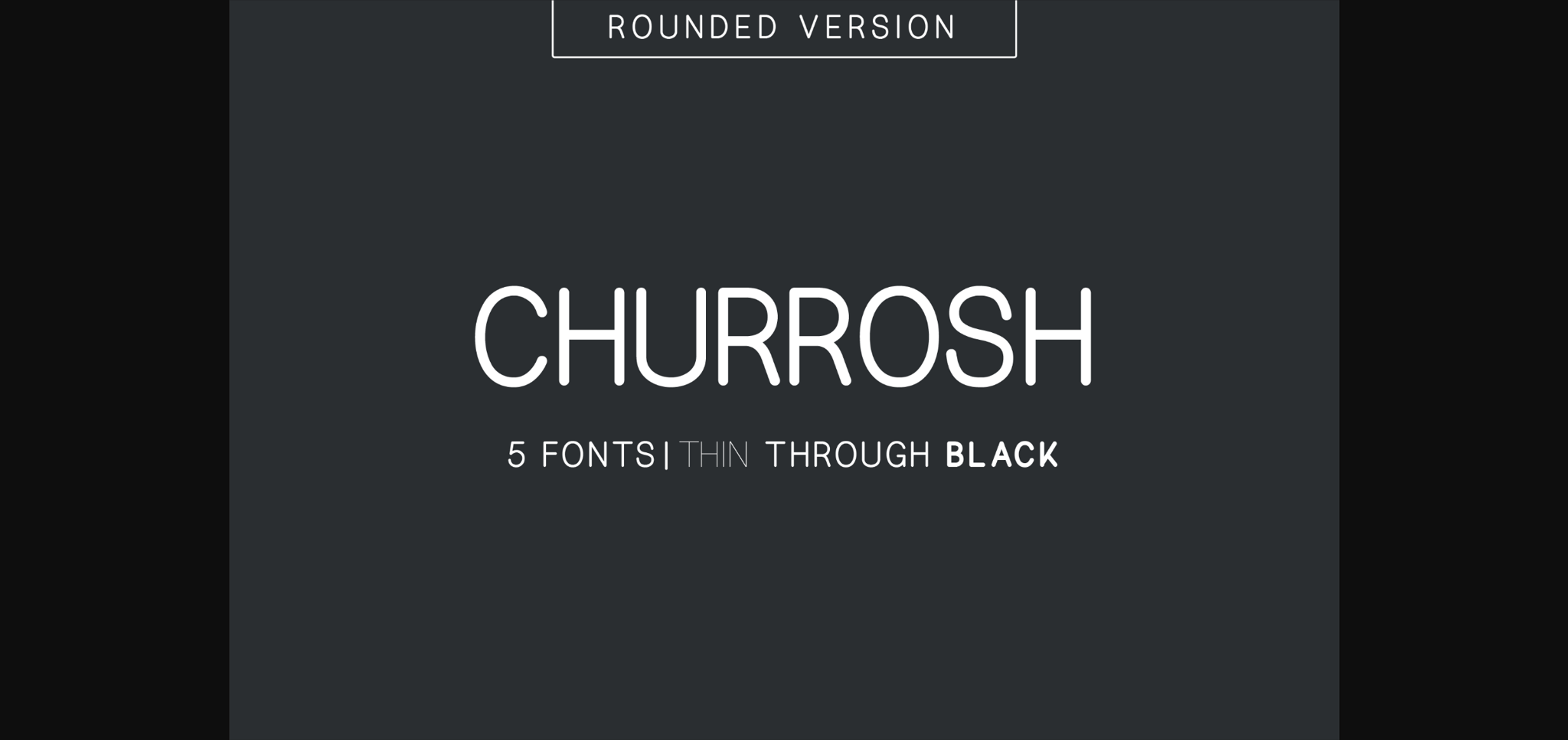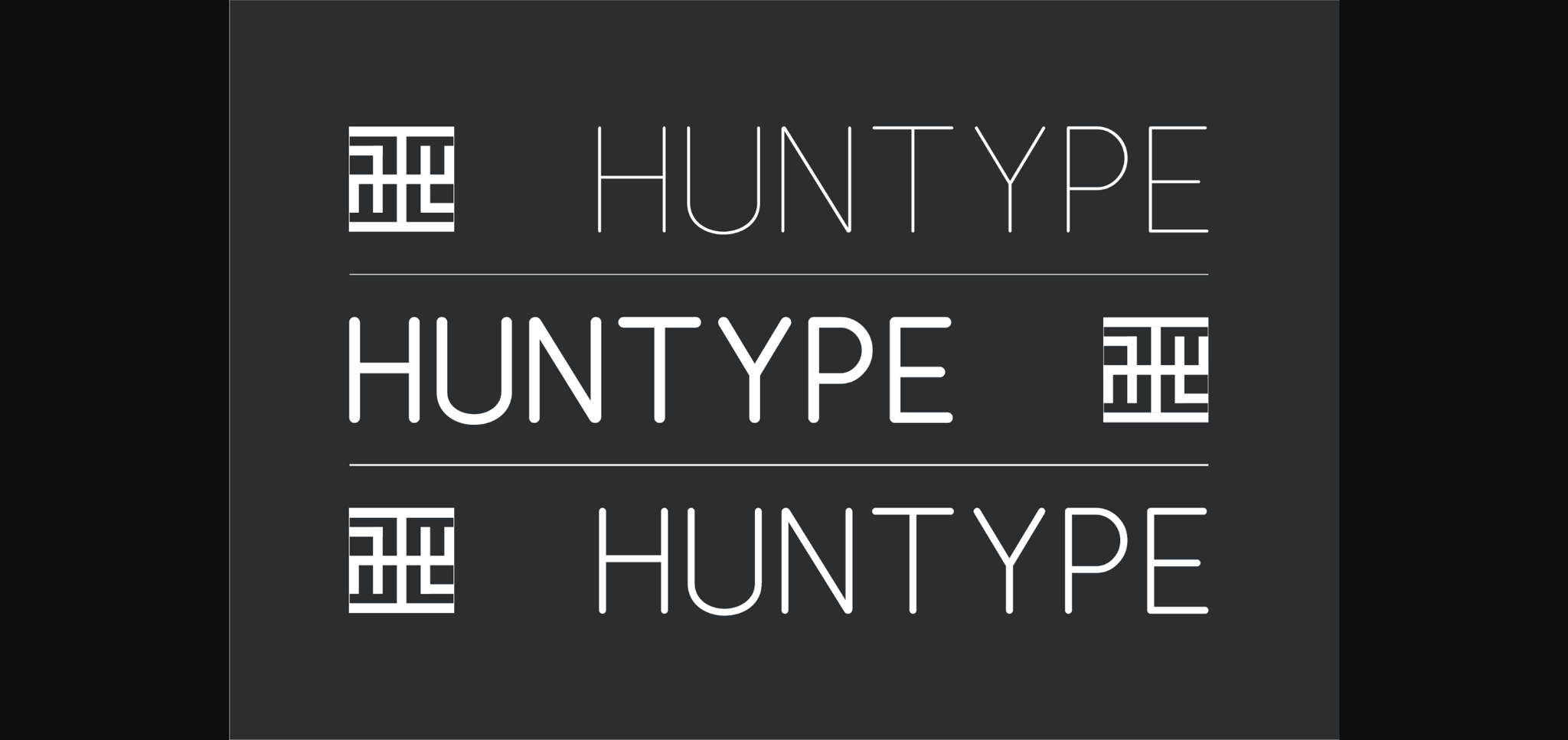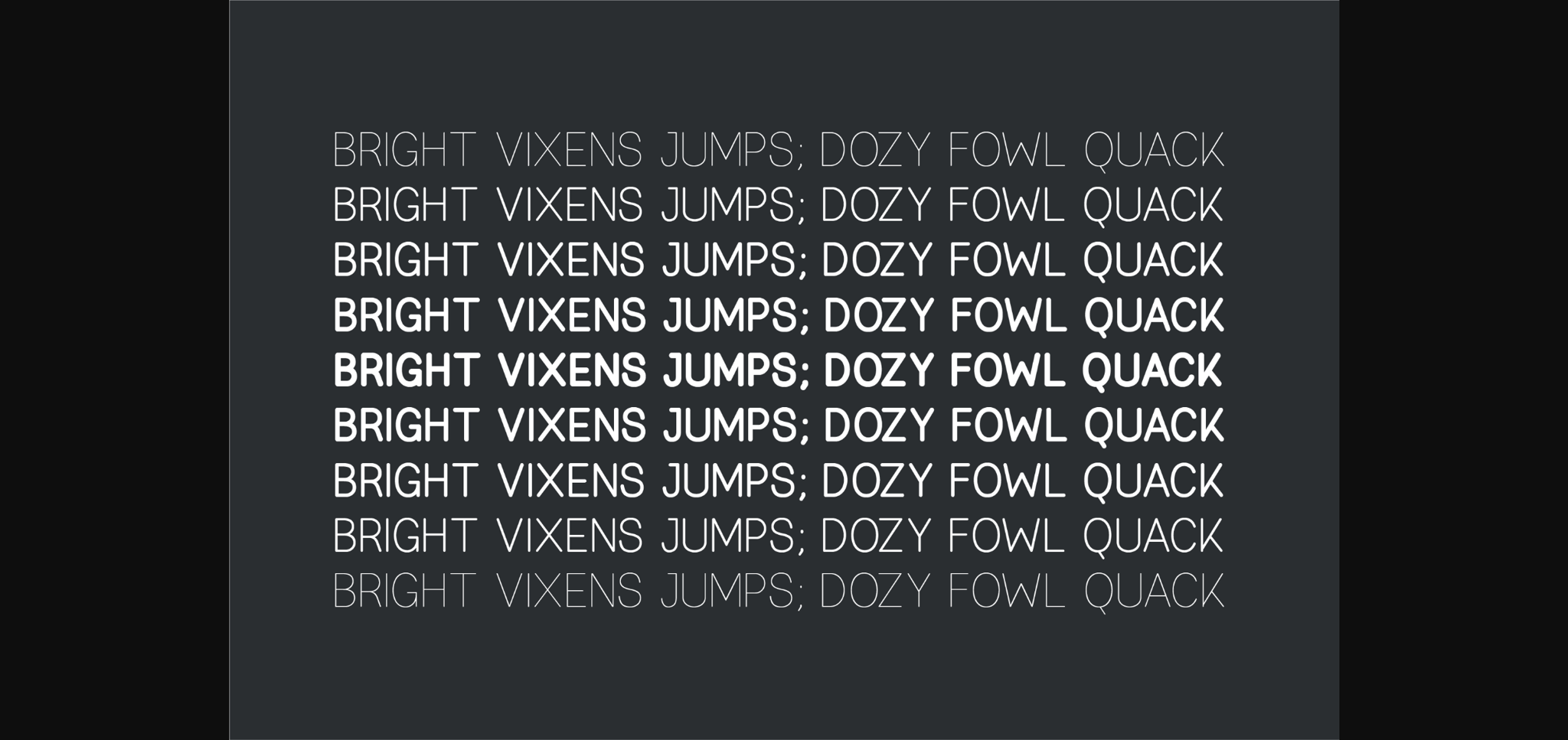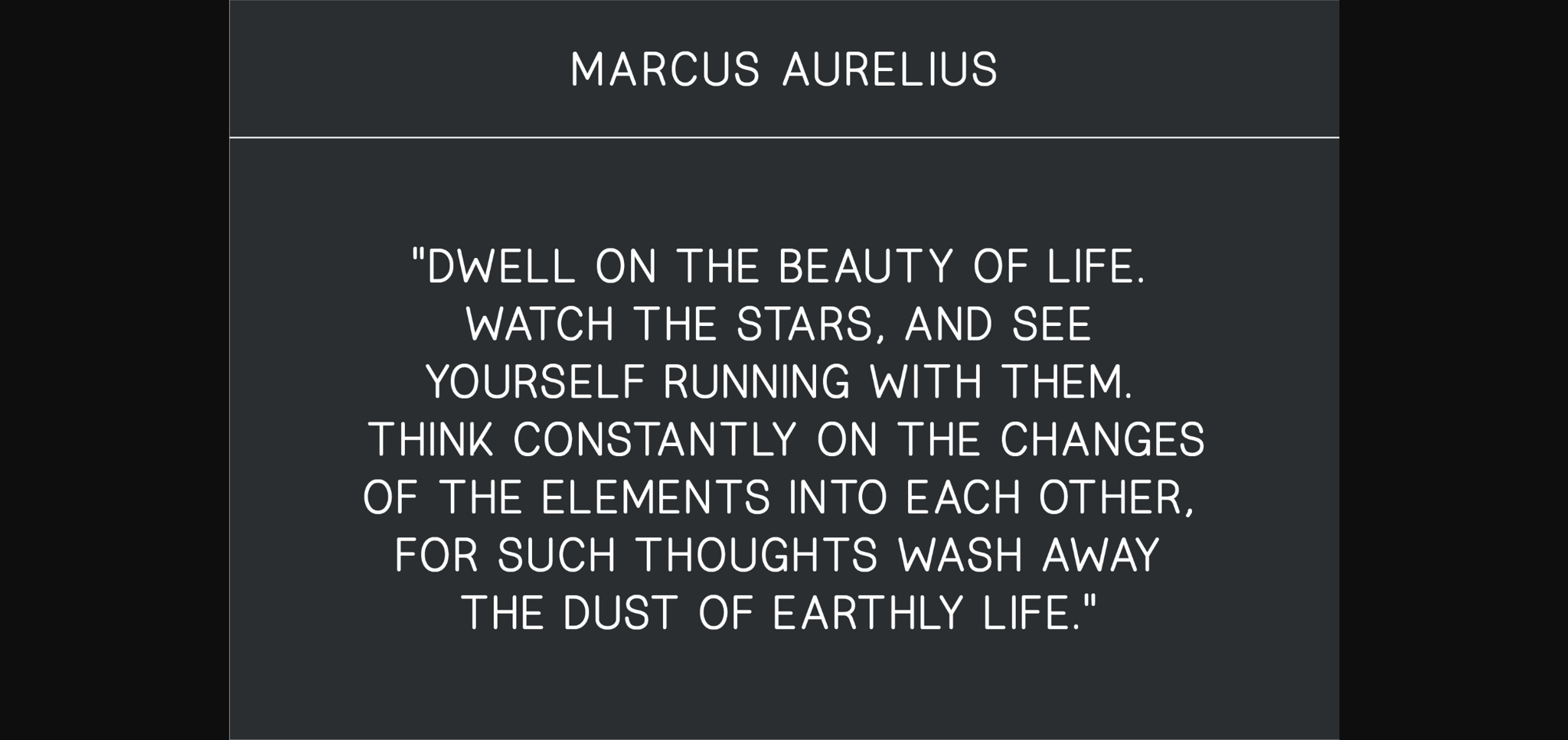
Churrosh Font
About Churrosh Font
Churrosh is a fun and quirky sans-serif font. This all-caps typeface is so versatile and looks great in just about any context. With smooth and clean lines, and just a touch of contrast, Churrosh works beautifully for logos, branding, and web headings.